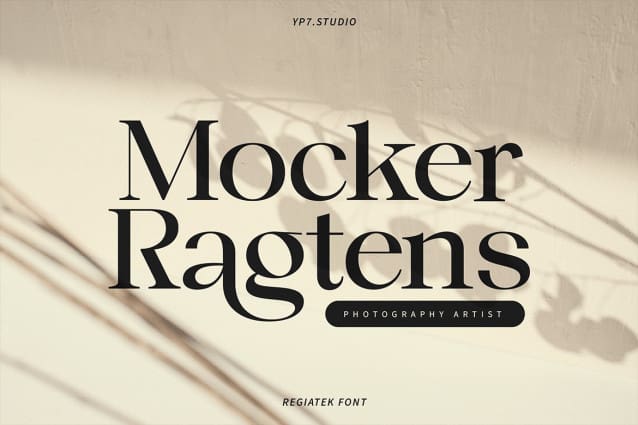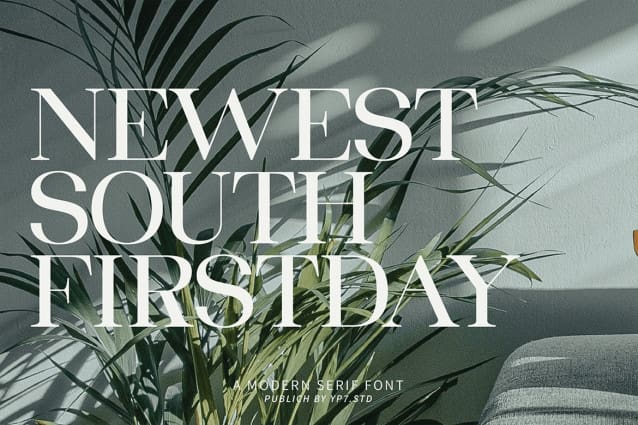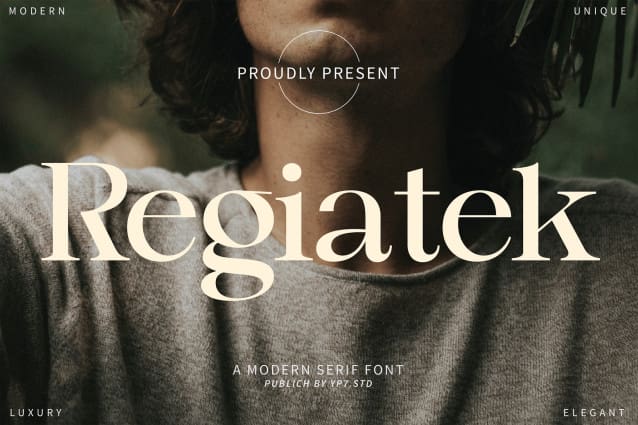
Regiatek Font
Regiatek Font, is a classy serif font that brings elegance to your text. With its sleek lines and sophisticated curves, it adds a touch of refinement to any project. Perfect for fashion magazines, stylish invitations, or upscale branding, it exudes confidence and sophistication. Whether you’re aiming for a timeless look or a modern edge, this font is sure to elevate your design with its understated elegance.